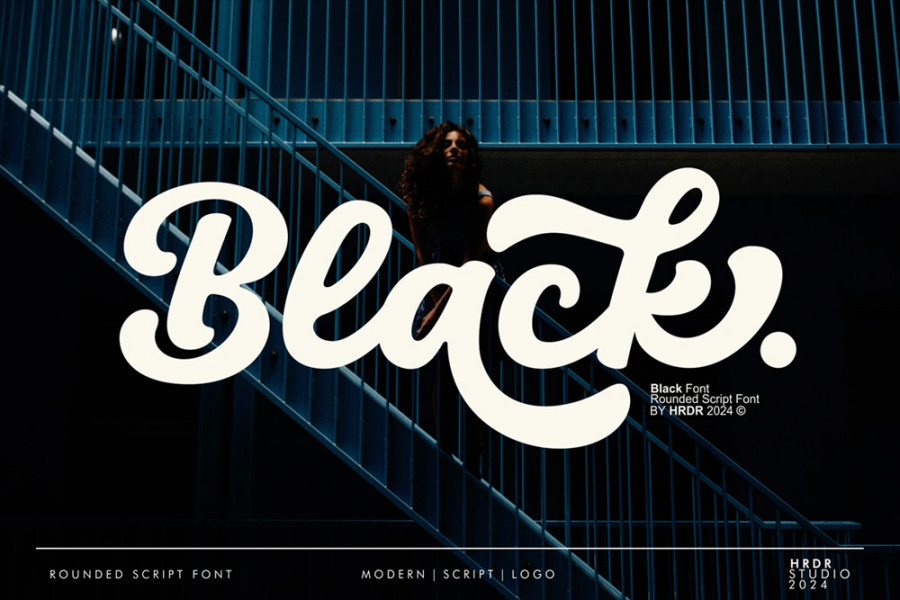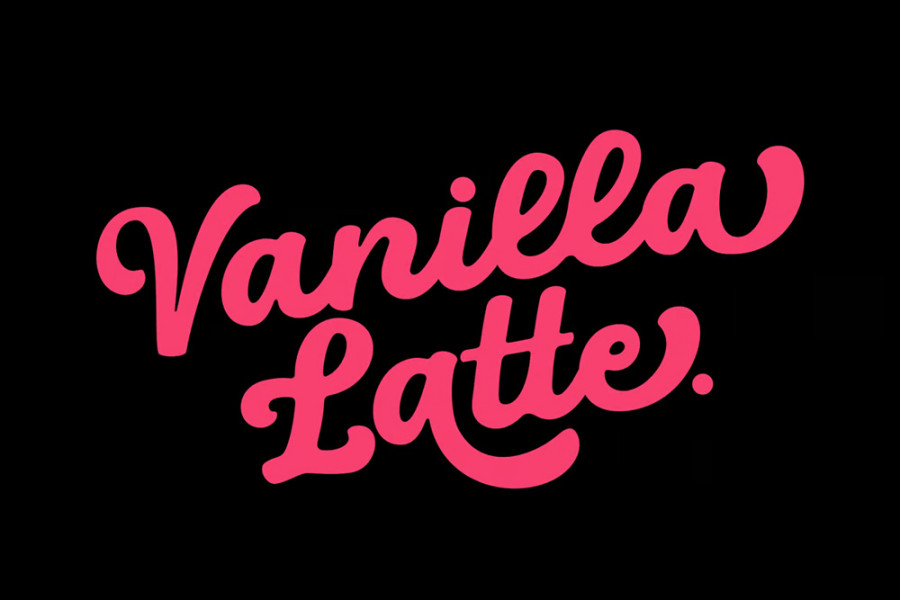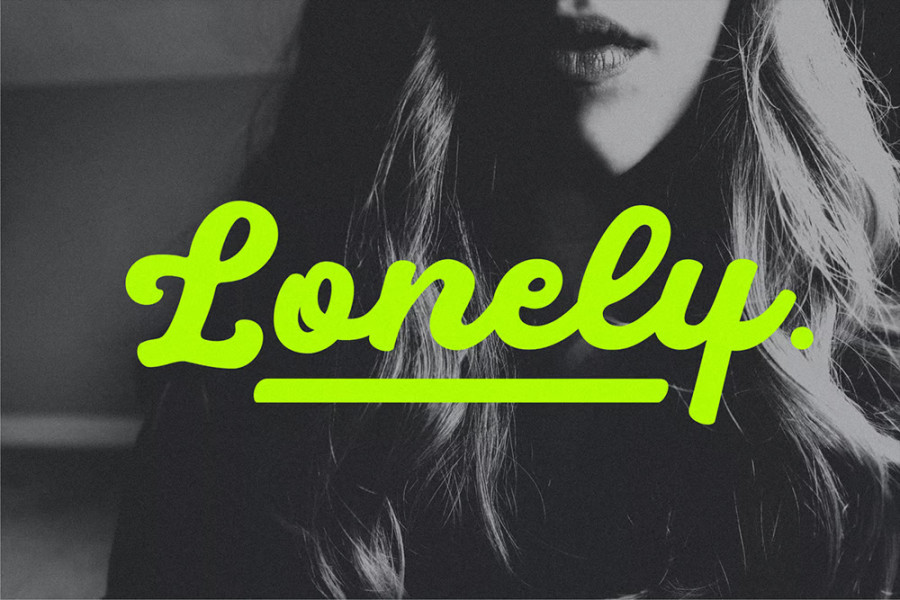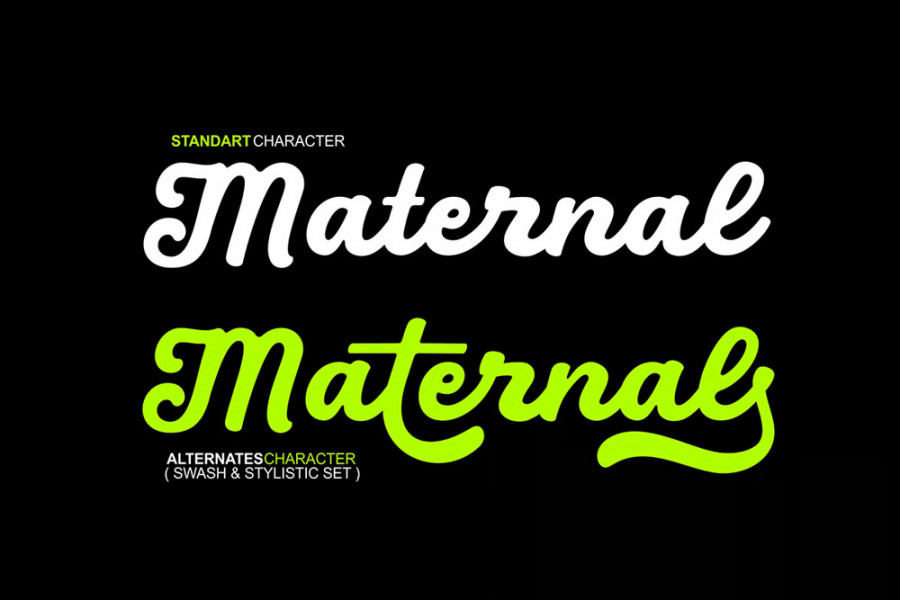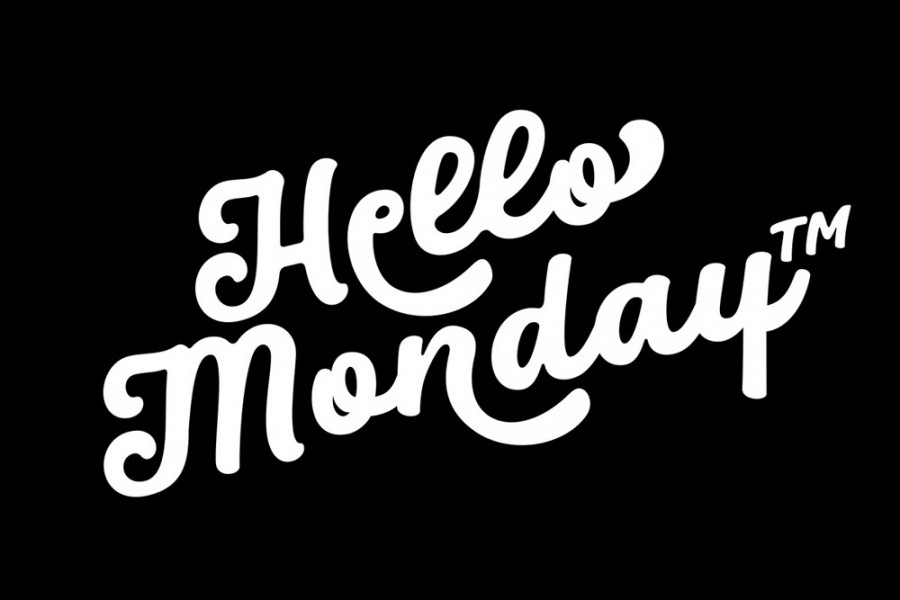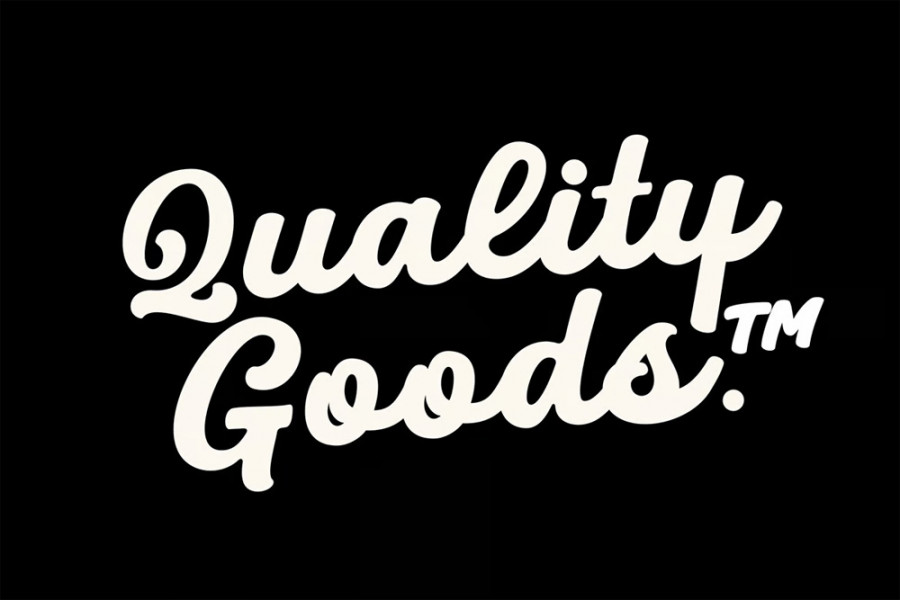
Black - Rounded Script Font
Black – Rounded Script Font for Retro and Elegant Designs Introducing Black, a bold, rounded script font that brings a charming retro flair to your designs. With its curvy, handwritten style, Black is perfect for creating eye-catching headl…